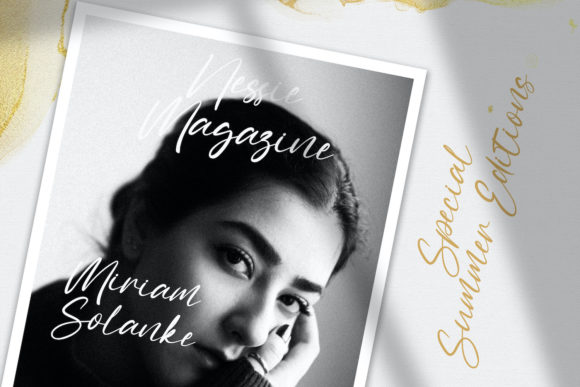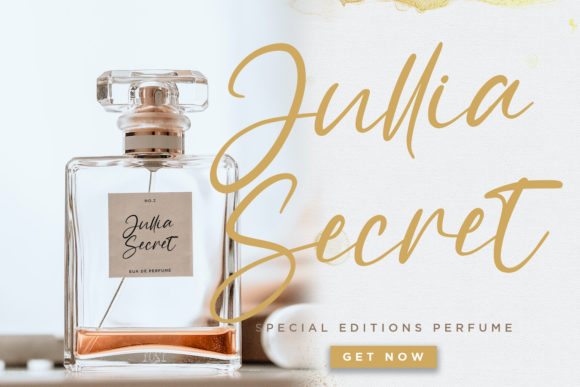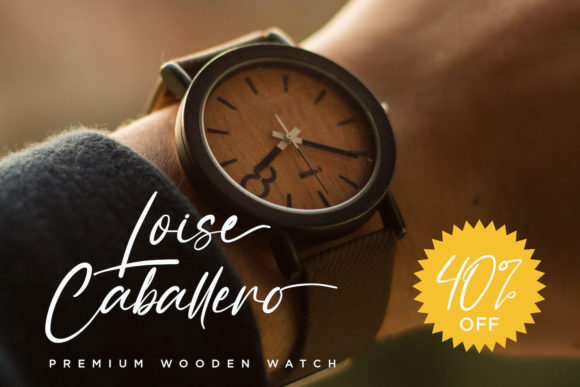
Introduction to Sally Tazem Font
Have you ever been in the middle of a creative project, pouring your heart and soul into it, only to feel like something’s missing? That’s when you know you need a game-changer – a design element that elevates your work to the next level. For many designers, that element is the perfect font.
Enter Sally Tazem Font, an exquisite handwritten font that’s sure to become a true favorite. With its classy calligraphic influences and fresh, contemporary feel, it’s the perfect addition to any project. Whether you’re working on a free download, a creative project, or just need a reliable design resource, Sally Tazem Font is the perfect choice. Its high-quality design and transparent background make it a versatile and valuable tool for designers of all levels.
But what makes Sally Tazem Font truly special is its ability to bring a touch of elegance and sophistication to any project. With its unique, handwritten style, it’s the perfect way to add some personality and flair to your designs.
Key Features of Sally Tazem Font
- Unique Hand-Drawn Style: The Sally Tazem Font features a distinctive hand-drawn style, making it perfect for creative projects that require a personal touch.
- High-Quality Design Resource: This font is a high-quality design resource that can elevate your designs and add a touch of sophistication.
- Perfect for Creative Projects: The Sally Tazem Font is ideal for creative projects, such as graphic design, digital art, and typography-based designs.
Honest Review: Sally Tazem Font
As a designer, I’ve had the pleasure of working with a wide range of fonts, but Sally Tazem Font is definitely one of my favorites. I downloaded it for free from a design resource website, and I was immediately impressed with its unique and quirky style.
One of the things that stands out about Sally Tazem Font is its versatility. It’s perfect for creative projects that require a touch of whimsy and personality, from branding and marketing materials to digital products and publications. The font is available in a variety of weights and styles, making it easy to find the perfect version for your project.
- Unique and quirky style that adds personality to any design
- High-quality design that looks great on a variety of backgrounds, including transparent backgrounds
⚠️ Limitations:
- May not be suitable for formal or professional designs, due to its playful and whimsical nature
- Some users may find the font’s quirks and irregularities distracting, rather than charming
Overall, I’m thoroughly impressed with Sally Tazem Font. Its unique style, high-quality design, and free availability make it a must-have for any designer looking to add some personality to their projects.
Common Use Cases and Tips
The Sally Tazem Font is a versatile design resource suitable for various creative projects, including logos, branding materials, and digital artwork. To get the most out of the font, experiment with different font sizes, colors, and combinations to achieve a unique look.
Yes, the Sally Tazem Font is a transparent font, meaning it has a clear background that can be easily layered over other design elements. This makes it a popular choice for designers working on projects that require a high level of design flexibility.